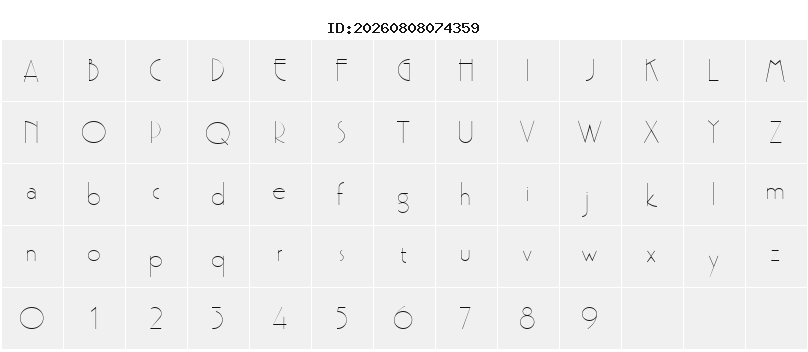
• Font Name: Premi
• Font ID: Altsys Metamorphosis:Premi
• Full Font Name: Premi
• Version: Altsys Metamorphosis:8/16/91
• PostScript Name: Premi
• Character Count: 91
• Copyright: Generated by Metamorphosis Professional 2.02
About Premi.ttf
Premi.ttf is a modern, elegant sans-serif font designed for ultimate readability and visual harmony. Perfect for branding, headlines, web design, and print materials.